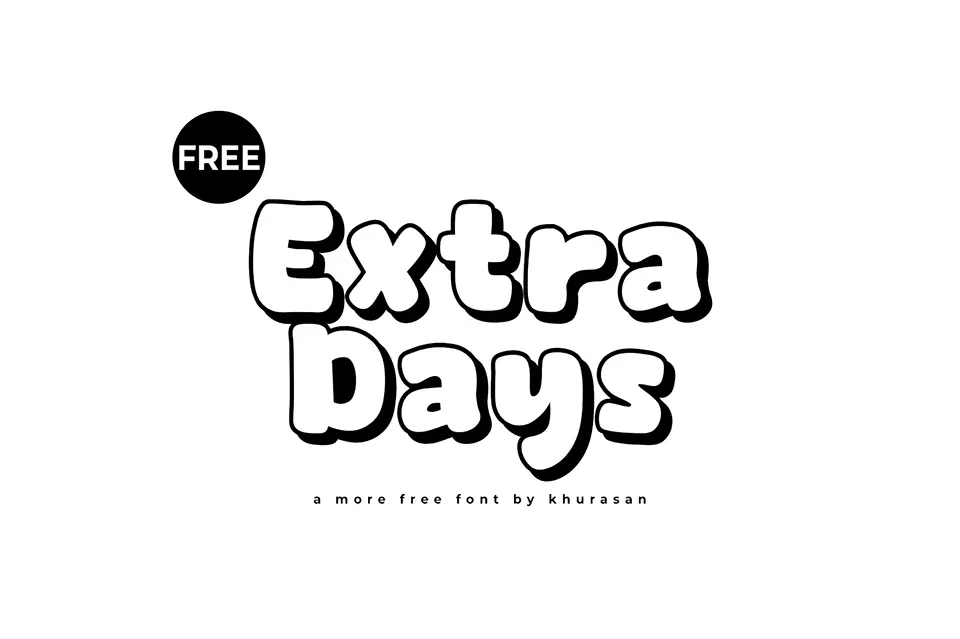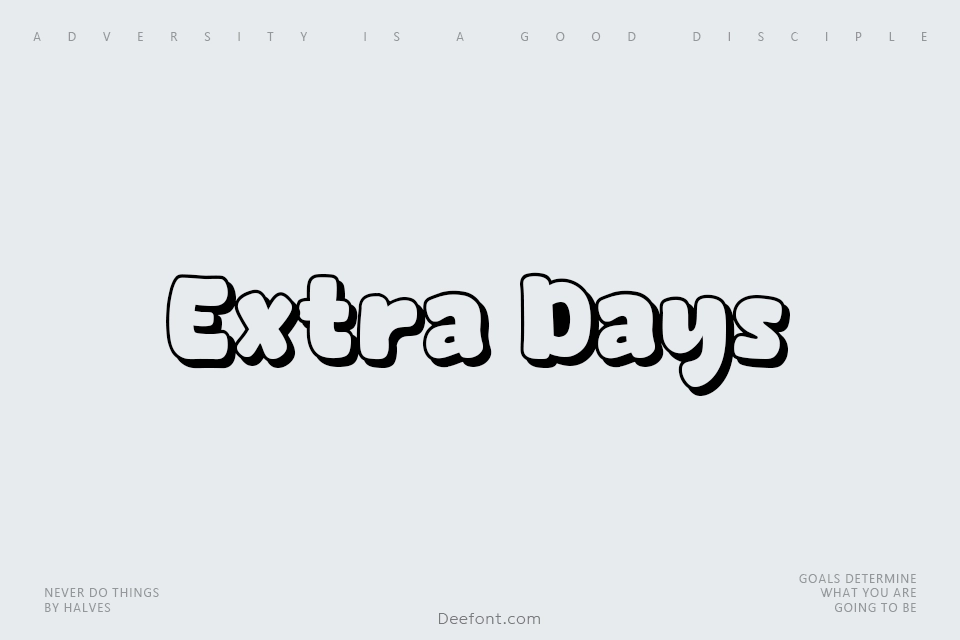
Extra Days Font
Extra Days is a playful cartoon display font featuring a retro-inspired aesthetic with rounded, whimsical letterforms. Designed with cheerful and joyful vibes, this bold typeface delivers an extra bouncy character perfect for eye-catching headlines, children's books, animation projects, video games, book covers, advertising materials, social media posts, logos, packaging designs, and branding applications. The font combines a handmade appeal with subtle character details that evoke a sense of fun and creativity.